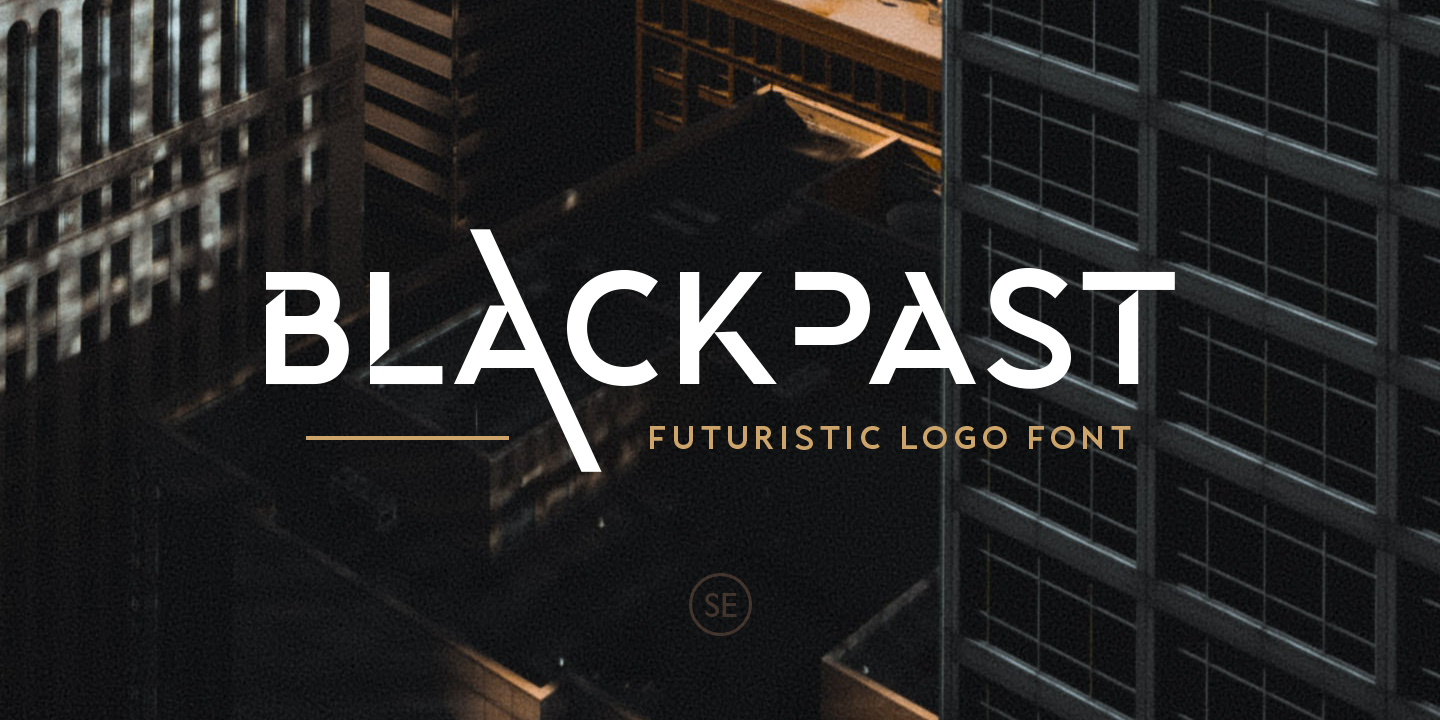
Blackpast
Blackpast, created by the talented Sarid Ezra, is a striking sans-serif typeface that captures attention with its bold, contemporary design. As a sans-serif font, Blackpast eschews the decorative strokes of serif fonts for clean, straight edges and smooth curves, making it ideal for modern and minimalistic designs.
The capital letters of Blackpast are characterized by their robust and solid stature, exuding confidence and clarity. The uniform stroke width throughout each character contributes to a cohesive and harmonious look, ensuring readability and visual appeal in a variety of applications. The lowercase letters, though simpler, maintain the font's strong presence with their balanced proportions and subtly rounded corners, offering a friendly yet professional vibe.
Blackpast's numerical characters align seamlessly with the lettering, demonstrating the same meticulous attention to detail. Each number mirrors the font's overall aesthetic—well-structured, bold, and easy to discern at a glance, which is particularly advantageous for contexts where clarity of information is paramount.
Designed with versatility in mind, Blackpast lends itself beautifully to headlines, branding, and editorial contexts. Its clean lines and modern appeal make it suitable for both print and digital mediums, adaptable to a range of design needs from corporate identities to personal projects. Sarid Ezra's Blackpast stands out as a reliable and stylish choice for designers seeking a contemporary sans-serif typeface that marries functionality with striking visual impact.